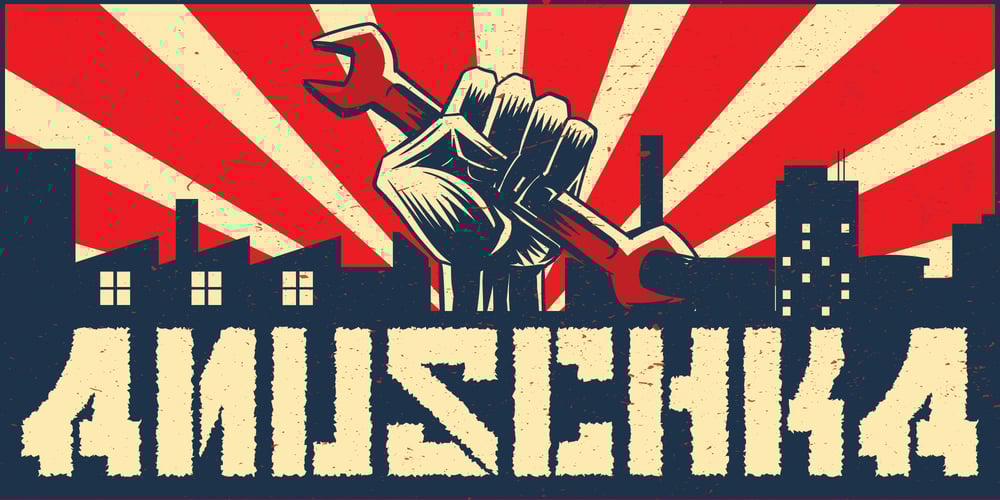
Anuschka
Anuschka font
Anuschka Font Family was designed by A A Ngurah A Krisna Teja and published by Anomali Creative. Anuschka contains 2 styles and family package options. Introducing **ANUSCHKA** – Faux Cyrillic Display FontFaux Cyrillic, pseudo-Russian or faux Russian typography is the use of Cyrillic letters in Latin text, usually to evoke the Soviet Union or Russia, though it may be used in other contexts as well. It is a common Western trope used in book covers, film titles, comic book lettering, artwork for computer games, or product packaging which are set in or wish to evoke Eastern Europe, the Soviet Union, or Russia. A typeface designed to emulate Cyrillic is classed as an ethnic typeface.**ANUSCHKA** came with that protest and propaganda vibe. It’s contain a complete Simple Latin Glyphs, with extra ligatures, D-Ligature, Stylistic set for the main character to make it stencil look and distressed look.—This font can be used with all software that can read standard fonts.Check out my instagram:https://www.instagram.com/anomalicreatype/Thanks so much for checking out my shop!All the best,**Krisna Teja**Anomali Creatype#typeface #Stencil #FauxCyrillic #Military #Protest #Poster #vintage #Extreme #design #Vintage #graphic #calligraphy #Retro #typography #propaganda #Poster #blackletter #retrostyle #illustration #Russian #socialist #character #set #uppercase #decorative #black #classic #Uppercase #handmade #capital #bold #number #modern #tattoo #english #art #label #logo #middle #typographic #antique #sign #letterhead #fashion #filmtitles #russia #comicbooklettering #videogames #computergames